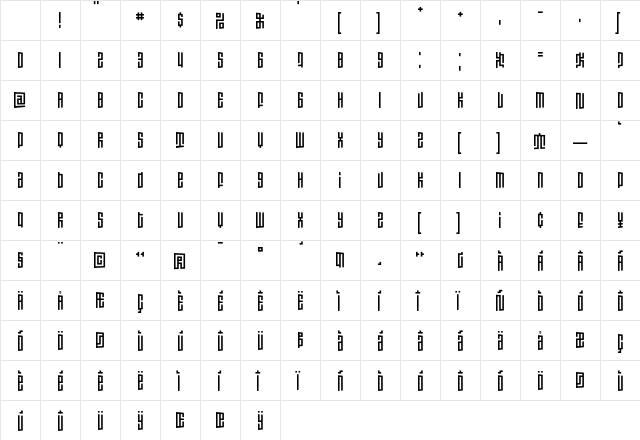
Janus PositiveRight
Style: PositiveRight
Complete Janus PositiveRight glyph index. Displaying only characters natively supported by Janus PositiveRight font.
Design Context for Janus
Janus is a composed and adaptable typeface that performs quietly and consistently across a wide range of design contexts.